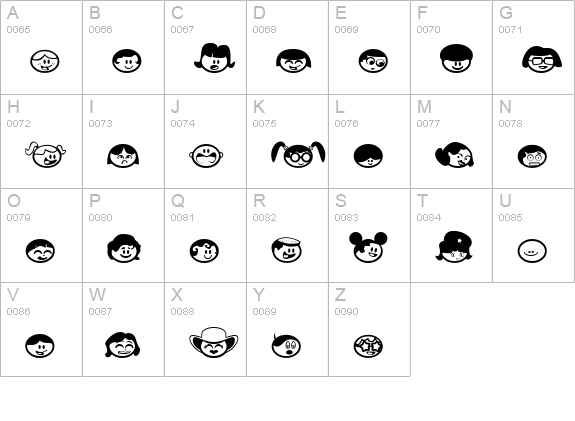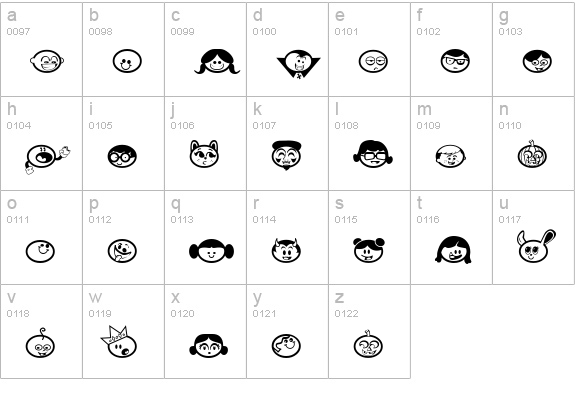
Chickabiddies Font Details
Chickabiddies font is a charming and whimsical typeface that exudes a playful and lighthearted feel. With its rounded edges and quirky letterforms, Chickabiddies is perfect for adding a touch of fun to any design project. This versatile font can be used for a variety of purposes, from children's books to greeting cards to branding materials. Best of all, Chickabiddies font is available for free download at FontsMarket.com. Whether you're a professional designer looking to add a unique touch to your work or a hobbyist looking to spruce up your personal projects, Chickabiddies is the perfect choice. Download it today and let your creativity soar with this delightful and free-spirited font.